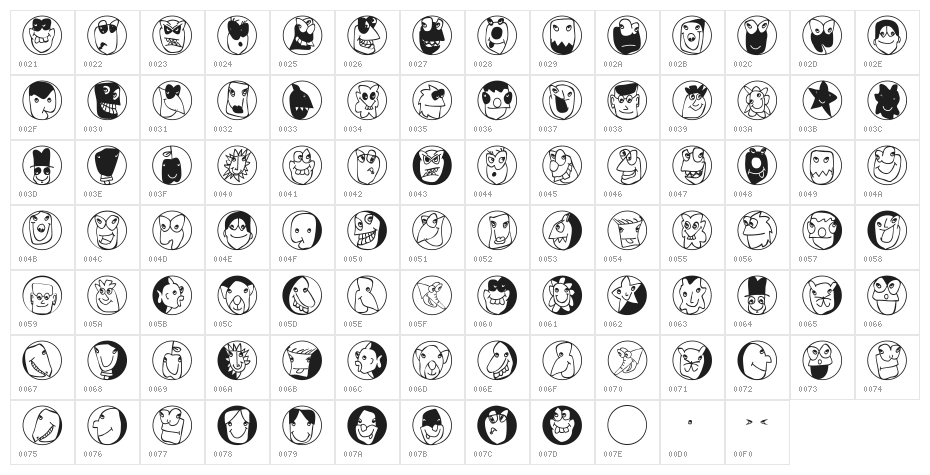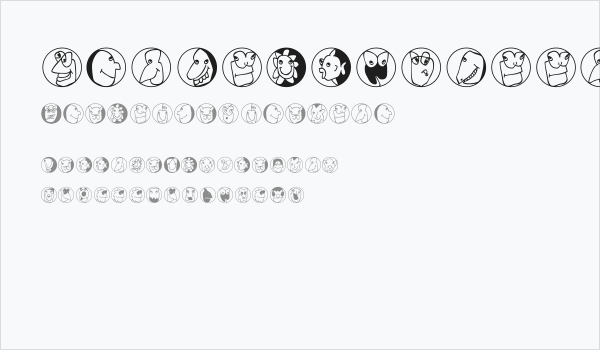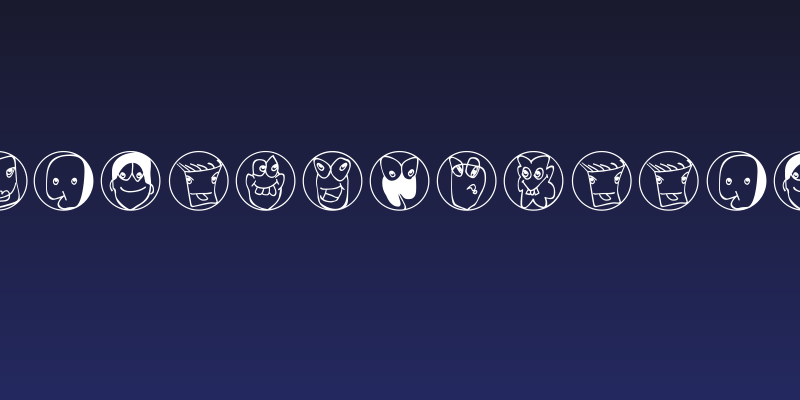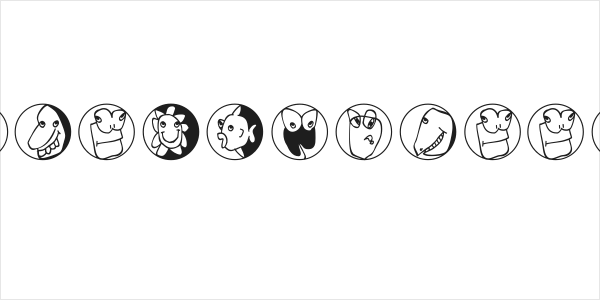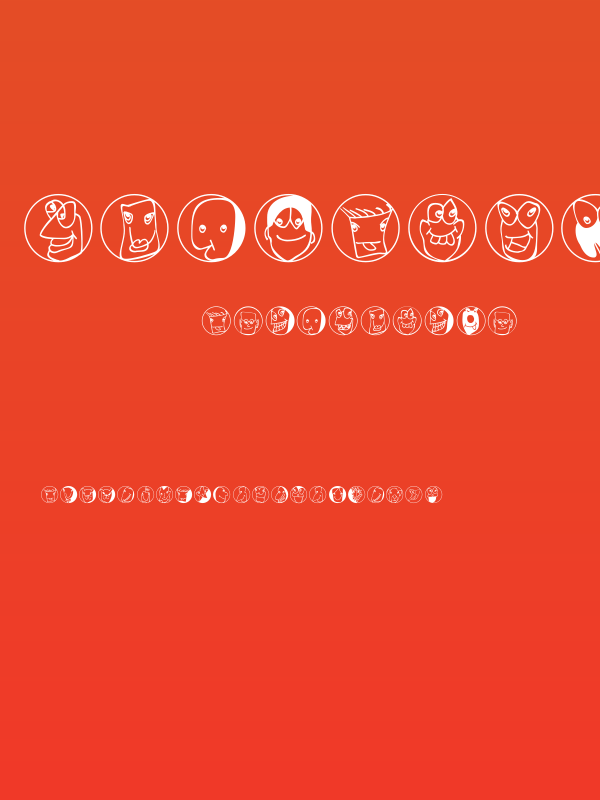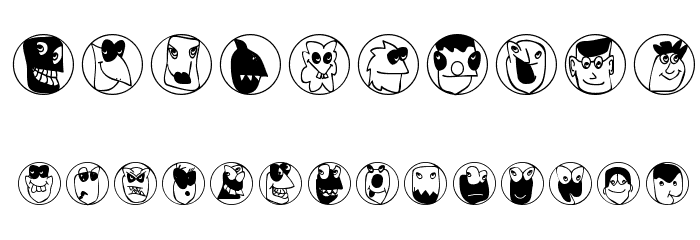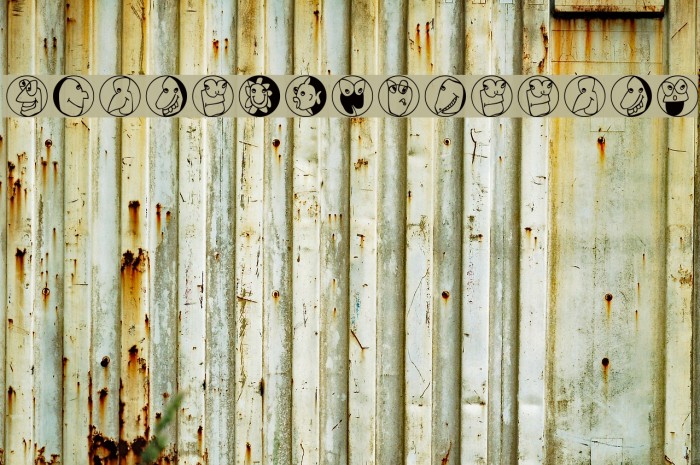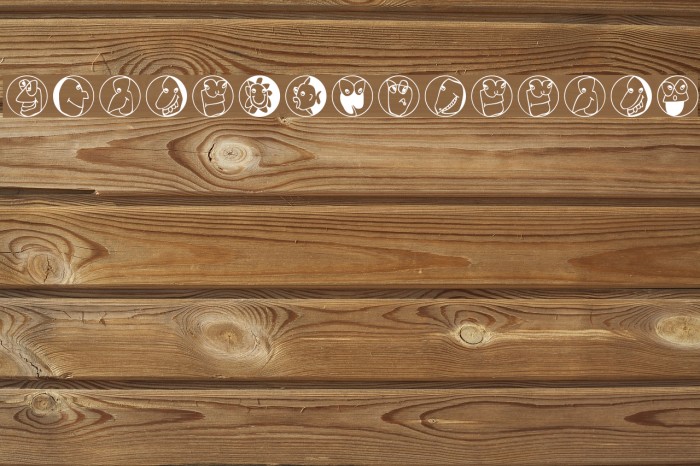
Frontal-Buttons Font
Frontal-Buttons Description
A playful and highly decorative font where each character is represented by a unique, hand-drawn cartoon face enclosed in a circle. The style is whimsical, with exaggerated facial expressions and varying line thicknesses, giving each glyph a distinct personality.
| Overall Style | Whimsical, Playful, Decorative |
| Use Case | Logos, Posters, Headlines, Themed Events |
| Proposed Projects | Children’s books, playful branding, party invitations, comic strips, educational materials. |